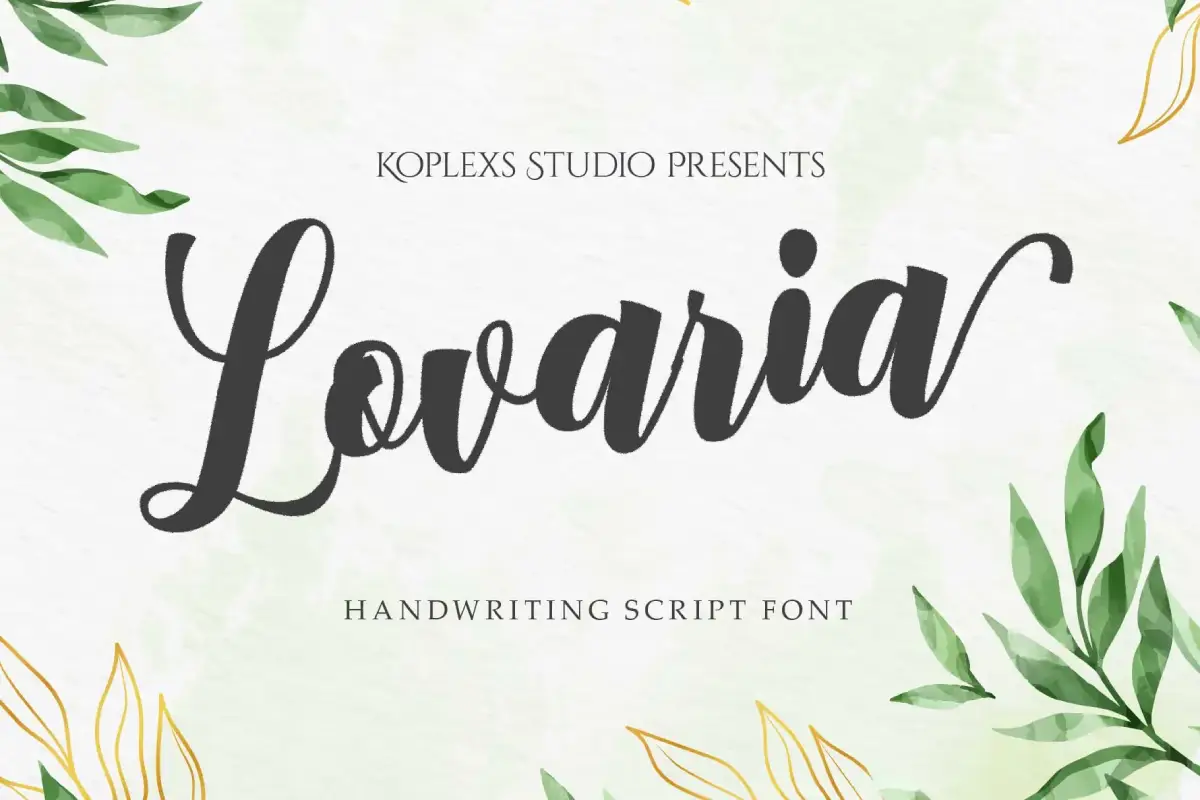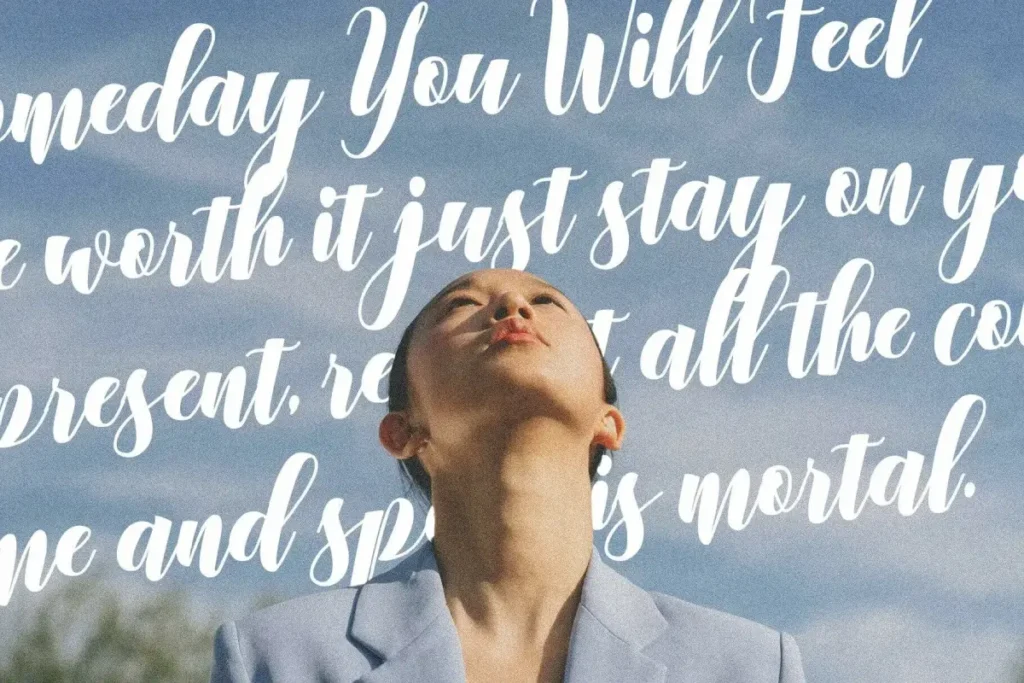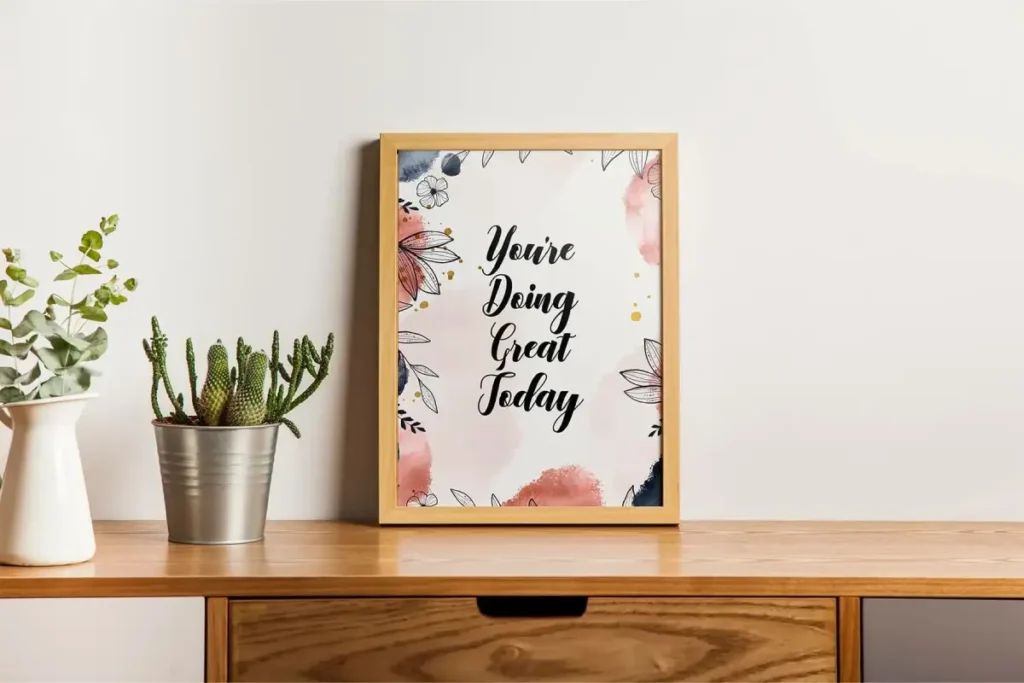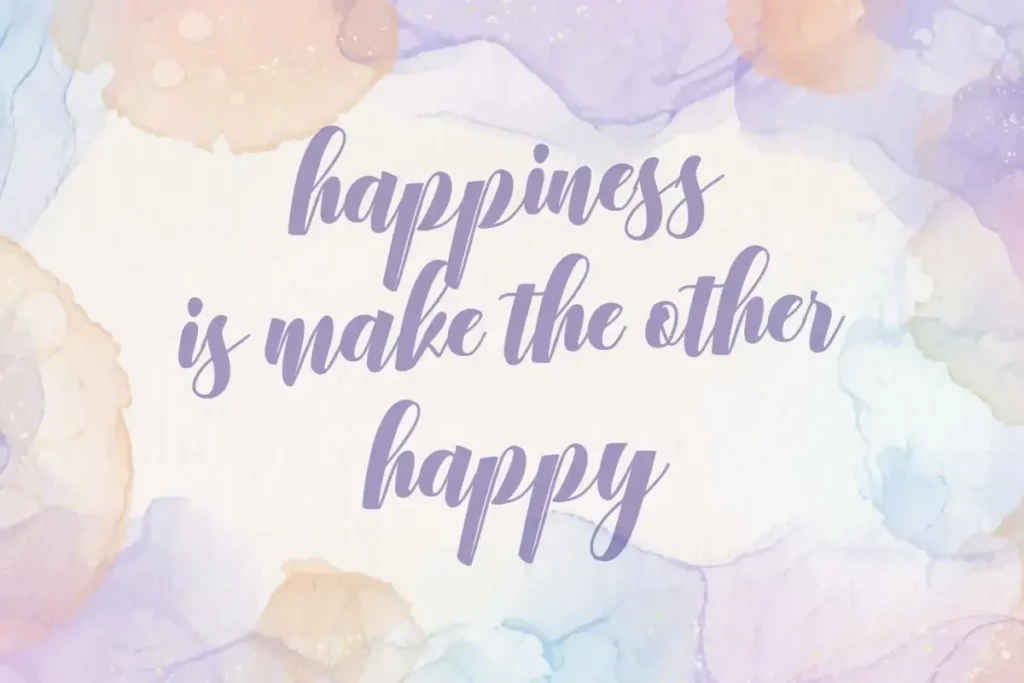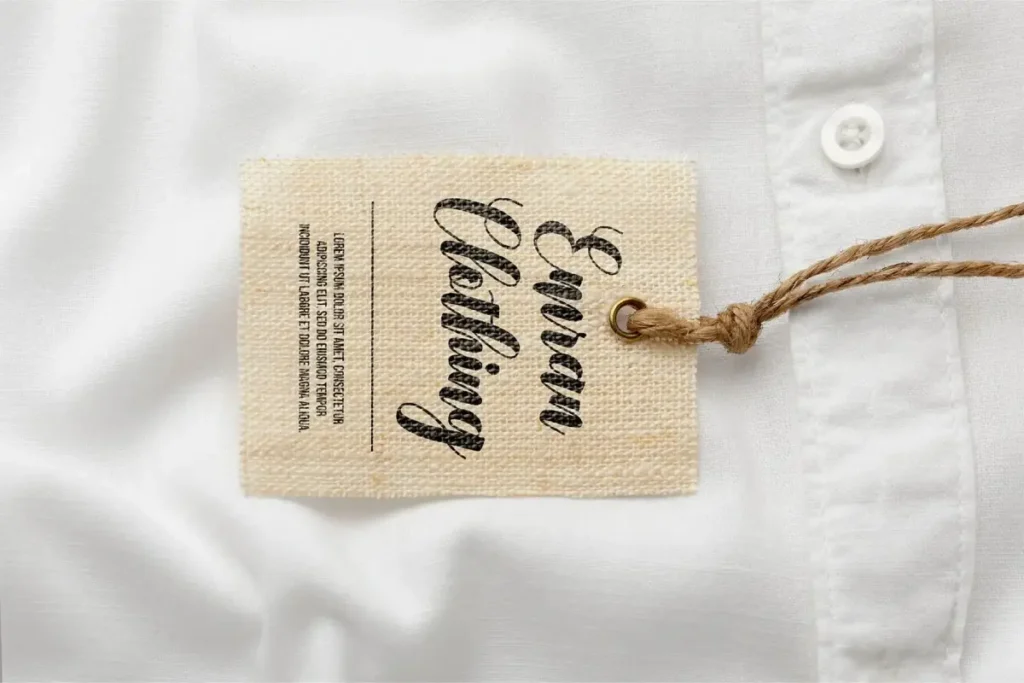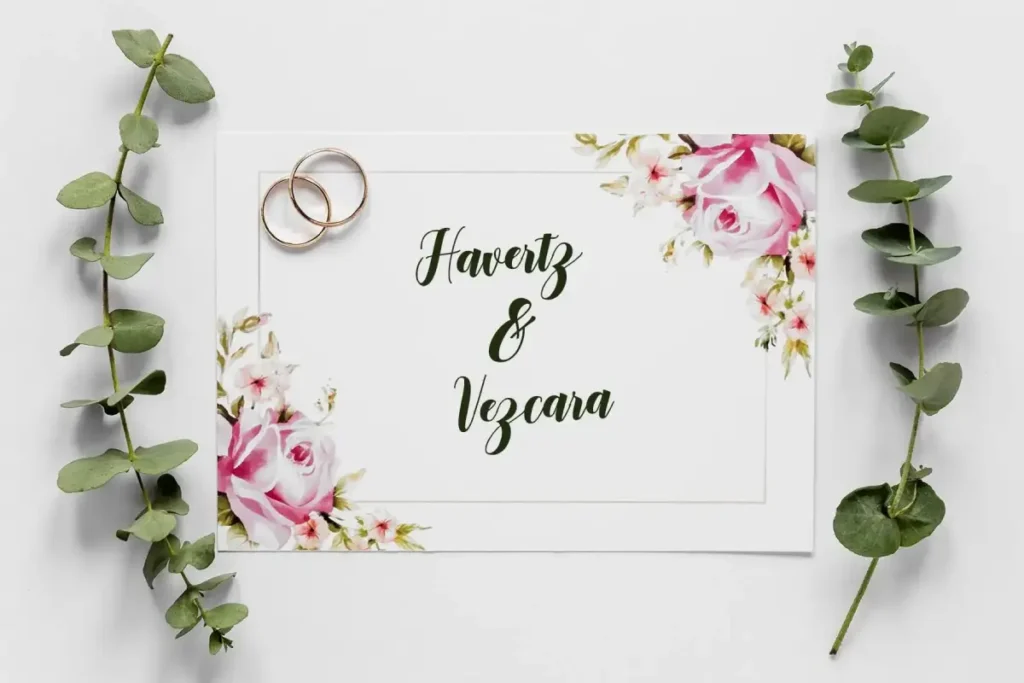
Lovaria Font
Lovaria Font is an elegant handwritten typeface designed with smooth, natural strokes that create a warm and personal impression. Blending the characteristics of a Script Font, Signature Font, and Cursive Font, it delivers a refined handwriting style suitable for both modern and timeless design concepts. Its fluid movement and balanced letterforms make it visually appealing and easy to read across various creative projects.
Crafted to offer versatility, Lovaria works beautifully as a Wedding Font, Branding Font, Cosmetic Font, Aesthetic Font, and Calligraphy Font. Its graceful rhythm adds a soft, luxurious feel that enhances invitations, stationery, product labels, and digital designs. The font’s expressive curves make it ideal for designers seeking a sophisticated handwritten touch without compromising clarity.
Whether you’re creating a stylish logo, designing elegant packaging, or crafting premium marketing materials, Lovaria adjusts effortlessly to multiple visual styles. It captures the charm of modern fonts while maintaining the authenticity of hand-crafted lettering, making it a perfect choice for projects that require beauty, personality, and professional polish.